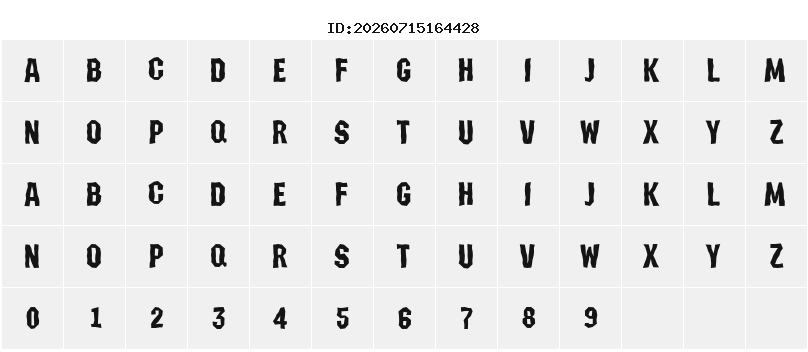
• Font Name: a_MeccanoBrk
• Designer: M.Slutsker & W.Chufarofsky
About a_MeccanoBrk.ttf
a_MeccanoBrk.ttf is a modern, elegant sans-serif font designed for ultimate readability and visual harmony. Perfect for branding, headlines, web design, and print materials.